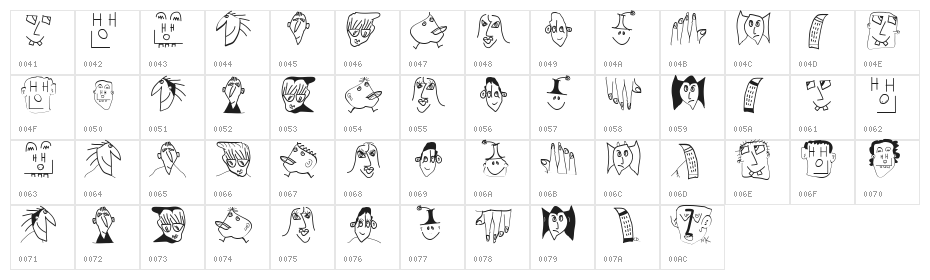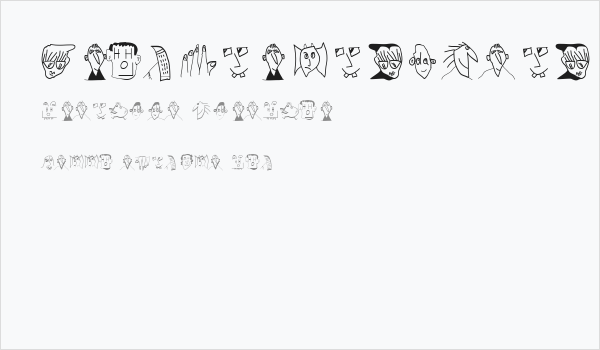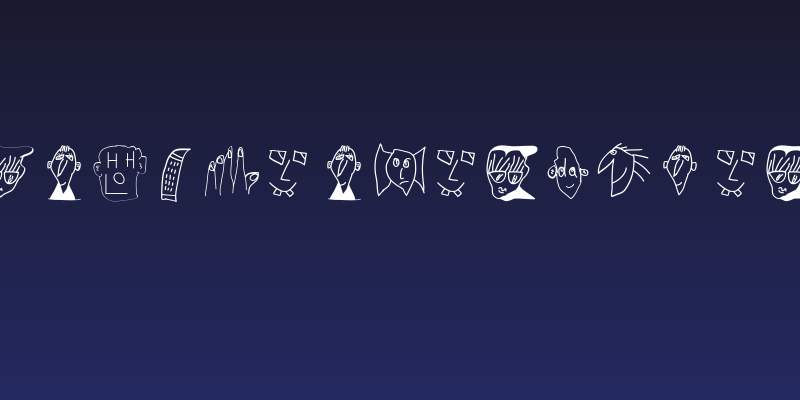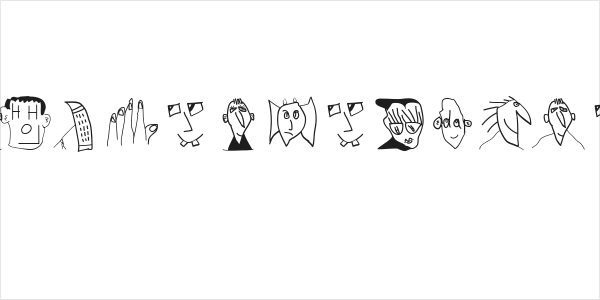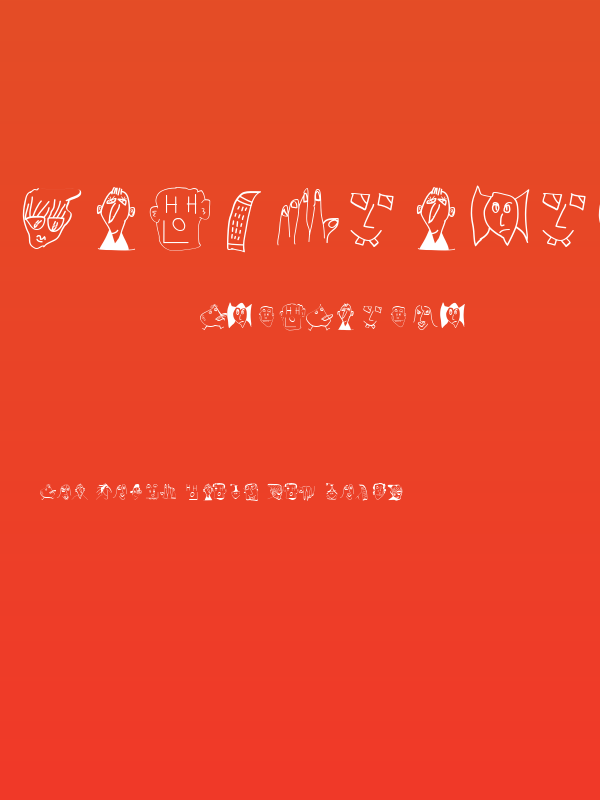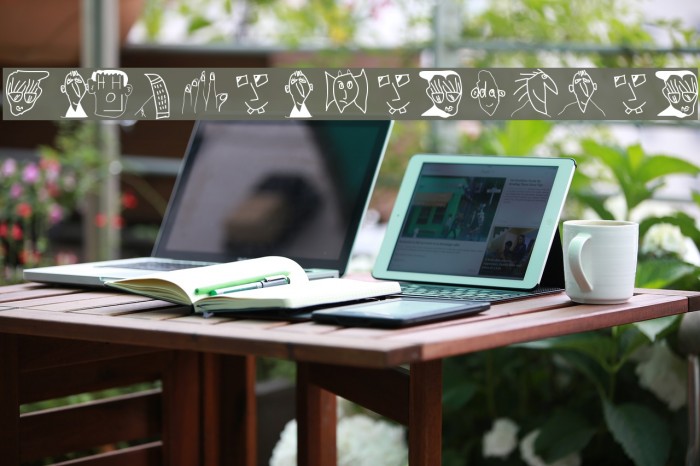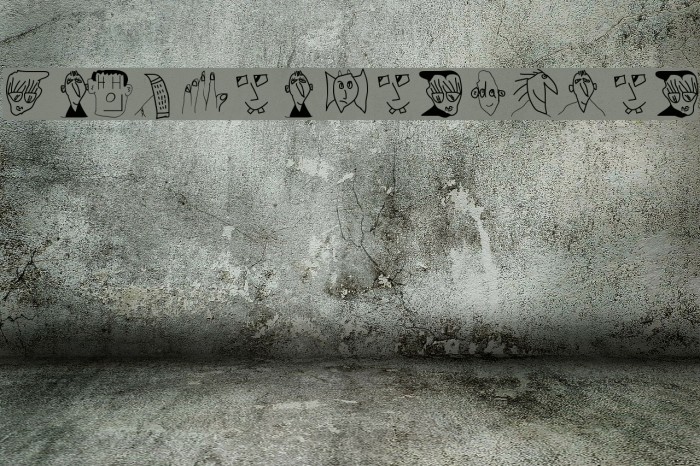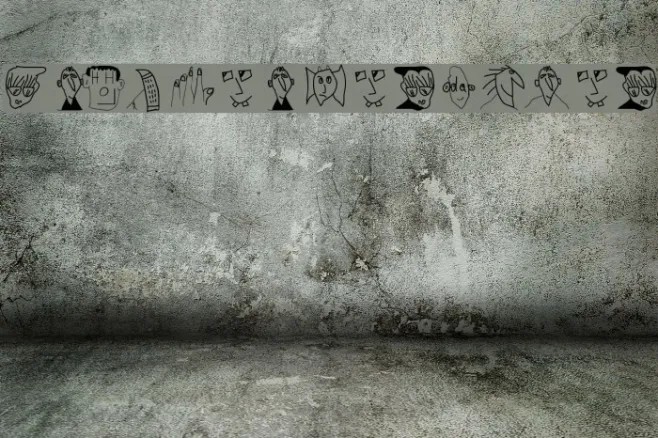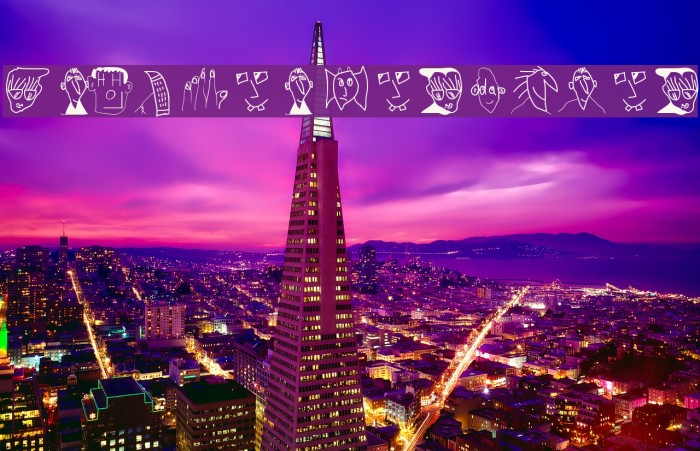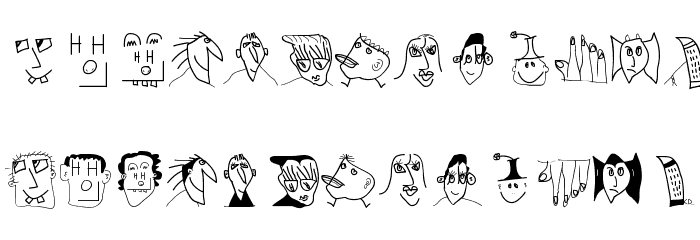
FromKarlasIdeas Font
FromKarlasIdeas Description
This is a highly decorative and whimsical font composed of abstract, cartoon-like faces and figures. Each character is uniquely designed, incorporating playful and exaggerated features that resemble doodles or sketches. The style is informal and artistic, with a hand-drawn appearance that adds a sense of creativity and fun. The characters vary significantly in shape and size, contributing to an eclectic and dynamic visual experience. This font is not suitable for traditional text but serves as an artistic expression, ideal for creative projects that require a unique and eye-catching design element.
| Overall Style | Artistic, Whimsical, Creative |
| Use Case | Artistic designs, Posters, Creative displays |
| Proposed Projects | Ideal for creative projects such as posters, album covers, art installations, or any design requiring a playful and artistic touch. |